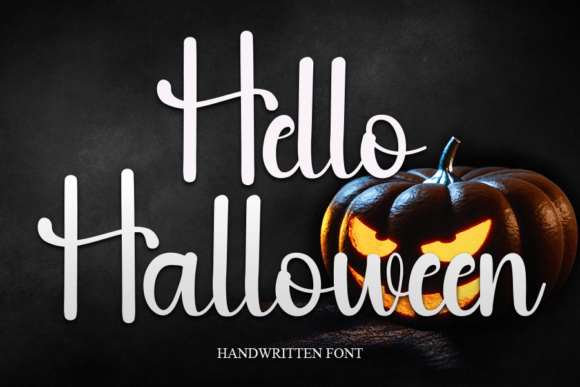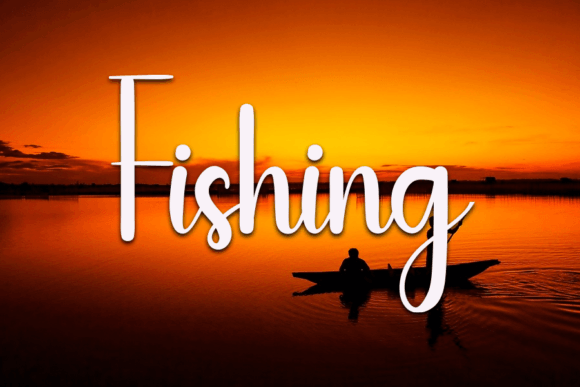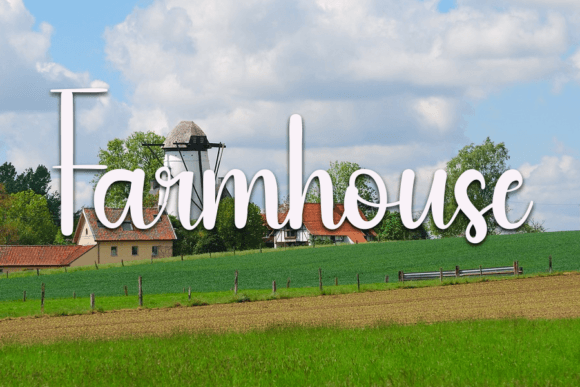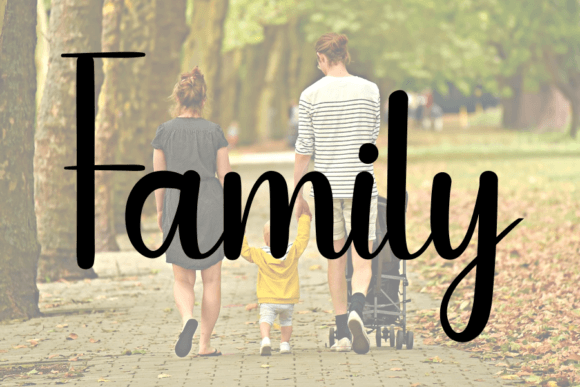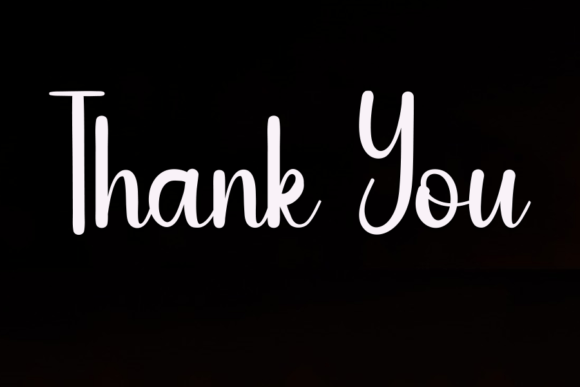
The Spooky Charm of Handwritten Fonts
As the leaves start to change and the air grows crisp, I find myself itching to break out the pumpkins, the cobwebs, and of course, the perfect font to match the spooky season. It’s that time of year again when creativity knows no bounds, and the possibilities for design are endless. And what better way to capture the essence of Halloween than with a font that screams “hello” to the season?
Enter the Hello Halloween Font, a simple yet elegant handwritten font that’s perfect for adding a touch of whimsy to your next project. Whether you’re designing greeting cards, headlines, or social media graphics, this versatile font is guaranteed to bring a smile to your face and a touch of magic to your designs. For designers, the Hello Halloween Font is a valuable tool in their arsenal, offering a natural and effortless way to add a seasonal twist to their work.
Hello Halloween Font Key Features
- Unique Characteristics: Hello Halloween Font features a spooky and playful design, with intricate details and ornaments that evoke a sense of Halloween spirit.
- Character Set: The font includes a wide range of characters, including uppercase and lowercase letters, numbers, punctuation marks, and special characters, making it suitable for a variety of applications.
Hello Halloween Font Review
Hello Halloween Font is a unique and quirky font that can add a touch of spooky charm to any design. Here are some of the things that work well: ✨
- Expressive and playful letterforms that evoke a sense of whimsy and fun.
- Excellent for creating eye-catching titles and headings that stand out from the crowd.
- Wide range of customization options to suit different design styles and preferences.
However, there are also some limitations to consider: ⚠️
- May not be suitable for formal or professional designs where a more conservative font is required.
- Some characters may be difficult to read or decipher, particularly in smaller sizes or at a distance.
- Lack of consistency in letter spacing and kerning, which can affect the overall readability of the font.
Overall, I think Hello Halloween Font is a great choice for designers who want to add a touch of personality and fun to their projects. With some careful consideration of the limitations and a thoughtful approach to design, this font can be a real showstopper.
Tips for Getting the Most Out of Hello Halloween Font
Here are a few tips for getting the most out of Hello Halloween Font:
- Use the font for spooky-themed designs, such as Halloween party invitations or haunted house decorations.
- Combine the font with other spooky graphics, such as ghosts or bats, for a cohesive look.
- Experiment with different font sizes and colors to create a unique and eye-catching design.
Alternative Fonts to Hello Halloween Font
Fontdiner Script
Fontdiner Script is a fun and playful handwritten font. It’s perfect for adding a whimsical touch to your designs, especially for Halloween-themed projects. This font is ideal for headings, titles, and short phrases. Compared to Hello Halloween Font, Fontdiner Script has a more casual and relaxed feel, making it suitable for a wider range of designs.